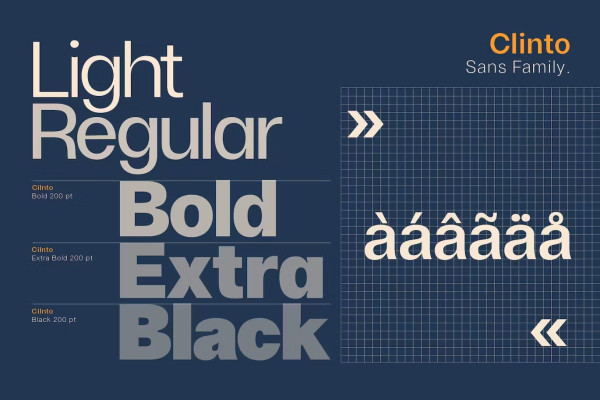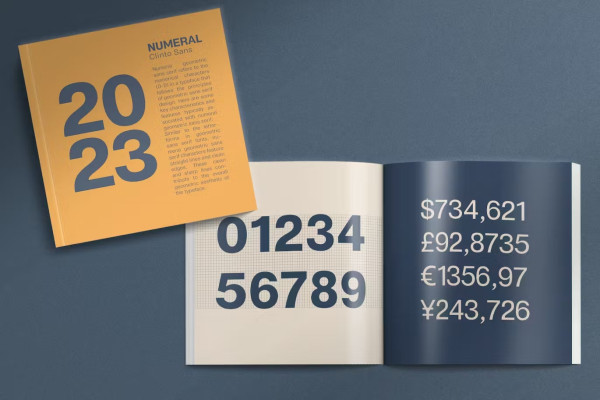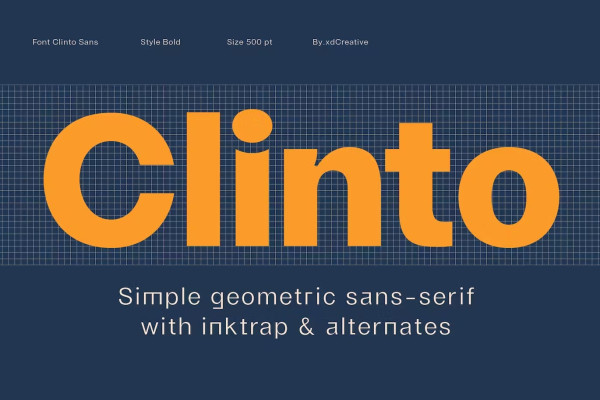
Clinto Font
Clinto Font by XDcreative, is a simple geometric sans serif font. Clinto Font are constructed using basic geometric shapes such as circles, squares, and triangles. The shapes of the letters are based on simple geometric proportions, which gives a coherent and harmonious visual rhythm
Clinto fonts favor simplicity and have a minimalist approach. They aim to reduce letterforms to their essentials, eliminating any unnecessary embellishments or embellishments. Clinto Sans also offers straight lines and sharp edges.
Clinto Sans also feature open openings, which refer to the space bounded by the curved or diagonal strokes of certain letters such as ” a “, ” e “, ” g ” and “s”. Open apertures help with readability and readability, especially for smaller sizes.
Special Features:
Ink trap: Ink traps are small recessed areas or notches incorporated into the corners or junctions of letterforms. They were originally designed for letterpress printing to prevent ink from filling in and distorting shapes, especially for smaller sizes. However, in modern digital fonts, ink traps are often used as a design element to add visual interest and maintain readability in small or low resolution environments.
Substitutes: Stylistic variants offer alternative forms or forms for certain letters of the font, a, e, g and r, etc. Stylistic variants are accessible through the OpenType features of design software. OpenType is a font format that allows advanced typographic features and character substitutions. You can access the alternate letterforms through the glyph palette or OpenType panel in their design software and selectively apply them to specific letters.